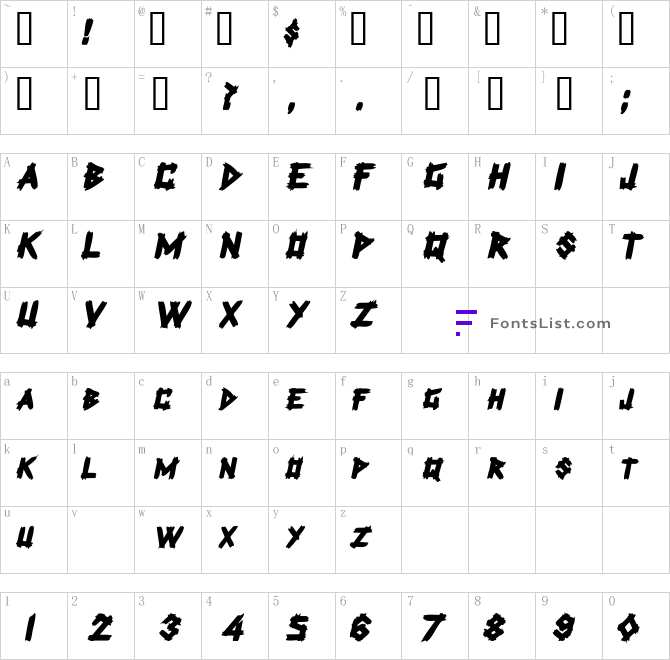
BarwoodSCapsSSK-BoldItalic.ttf is a very beautiful artistic font, BarwoodSCapsSSK-BoldItalic.ttf is widely used in the design and printing of various books and pictures,BarwoodSCapsSSK-BoldItalic.ttf has a strong visual impact,BarwoodSCapsSSK-BoldItalic.ttf is a commonly used font in newspapers, magazines and books, and is used in posters, e-commerce Poster design, store design, logo design, font design and other fields.BarwoodSCapsSSK-BoldItalic.